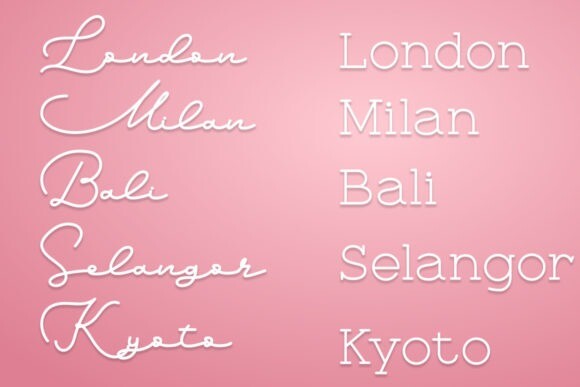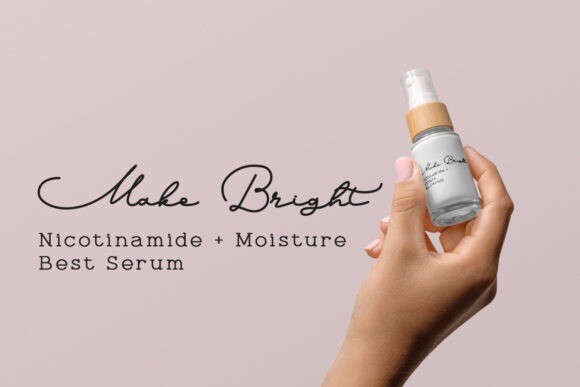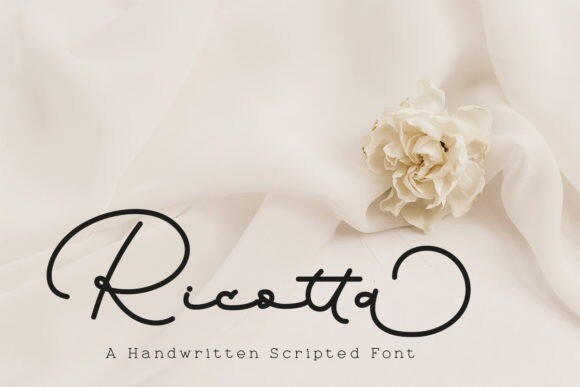
Ricotta Font
Ricotta Font is an elegant handwritten script designed to charm your projects. From quotes and packaging to whatever else, this font will send the message you desire.